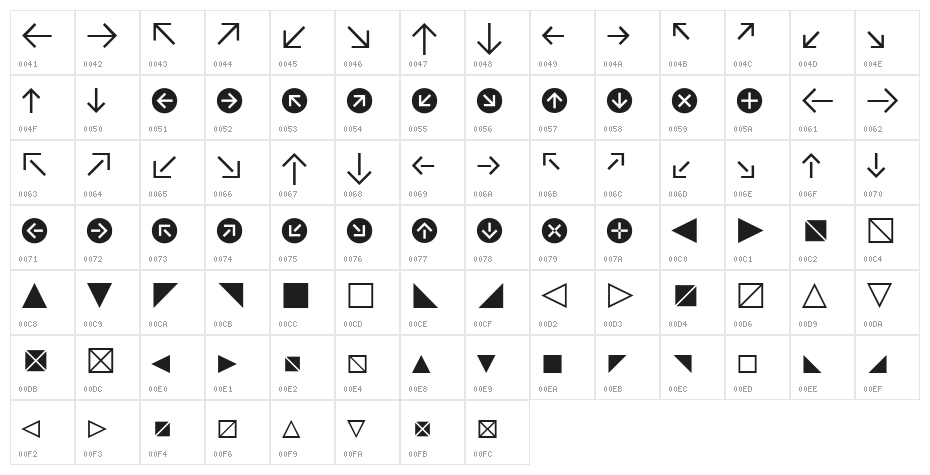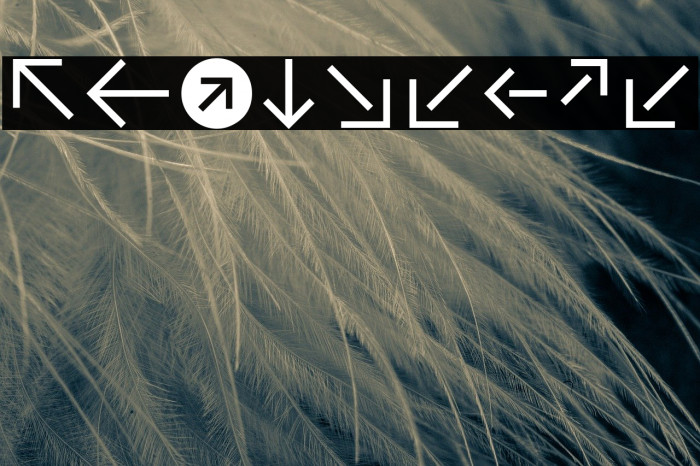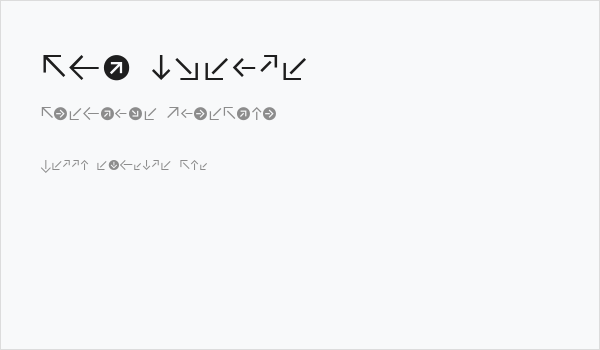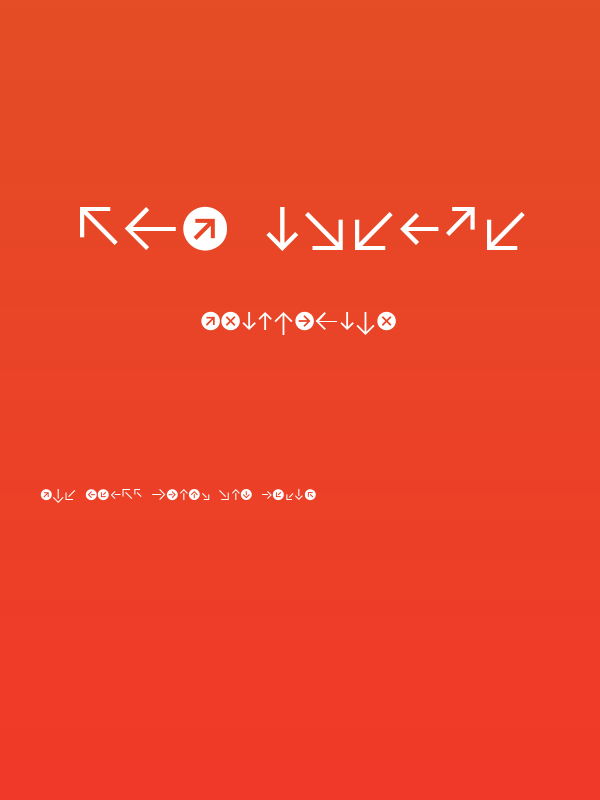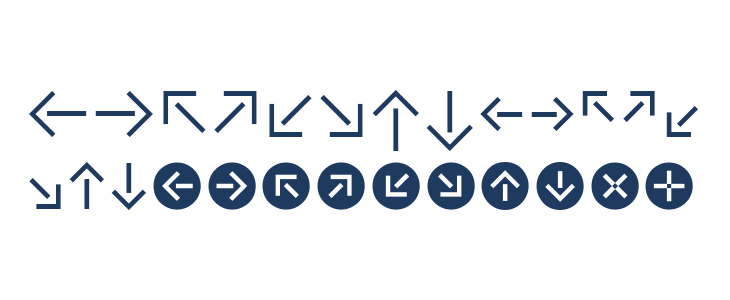
A geometric, symbol-based font consisting entirely of arrows in various directions and simple icons (cross, plus), some enclosed in solid circles. The lines are clean, uniform, and of medium thickness, with no serifs or decorative elements. The style is highly legible and functional, designed for clear directional signage or interface elements.
A geometric symbol font featuring directional arrows and basic icons from Uncategorized fonts.
- Proposed Projects: Wayfinding systems, user interface icons, instructional graphics, infographics, educational materials.
- Overall Style: Modern, Functional
- Use Case: Icons, Signage, UI elements